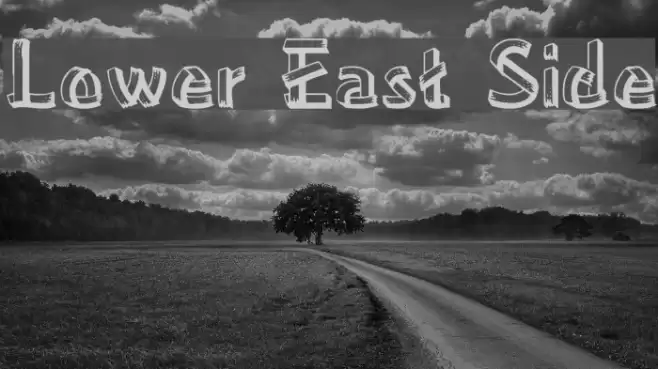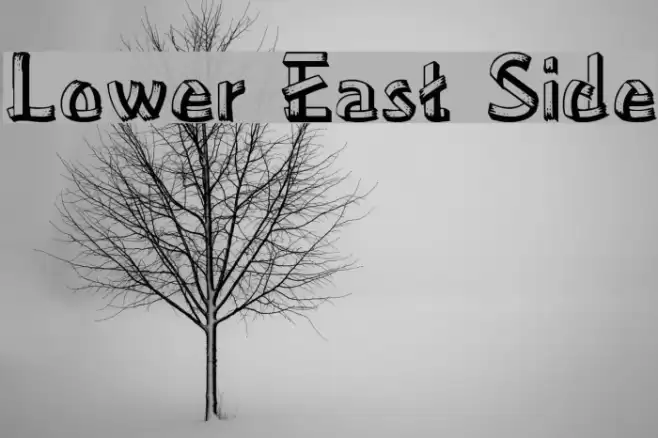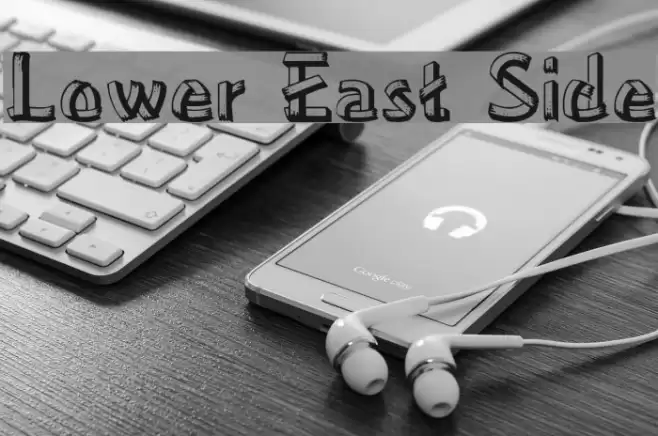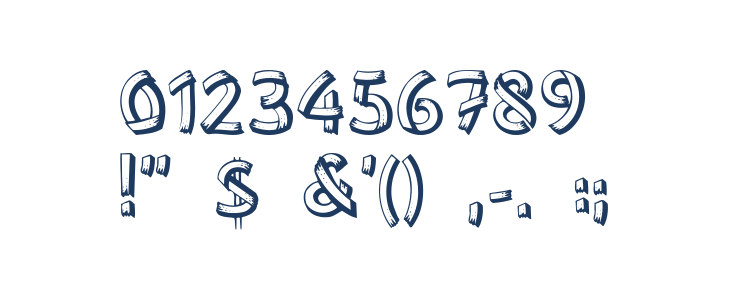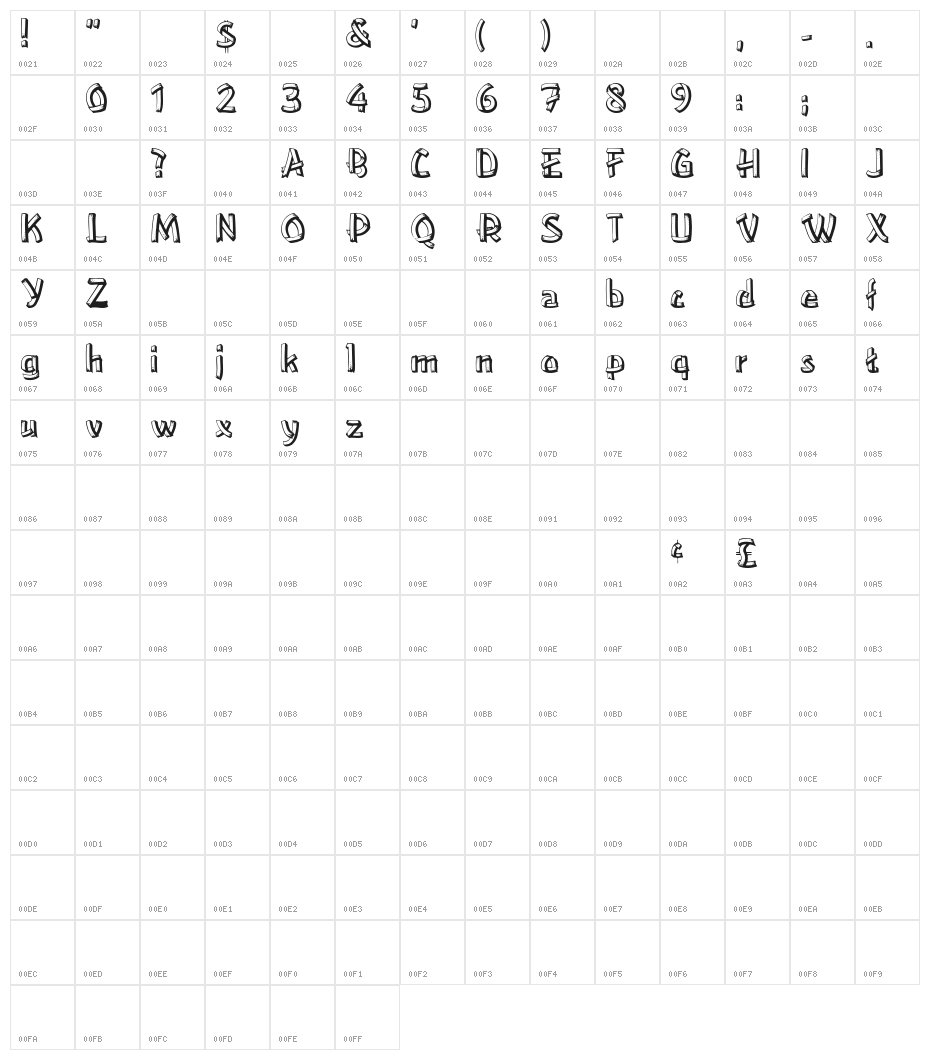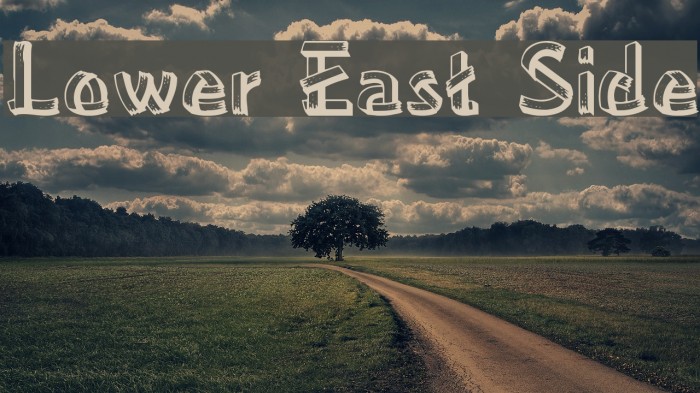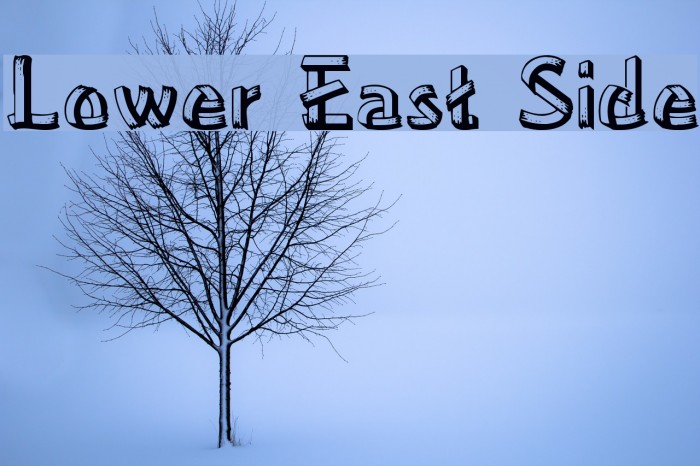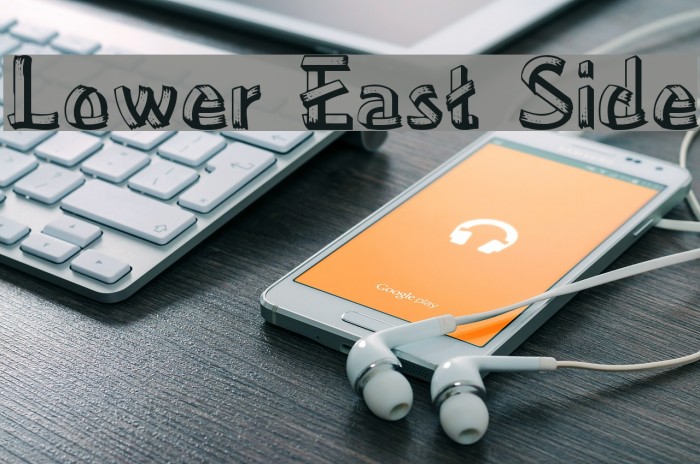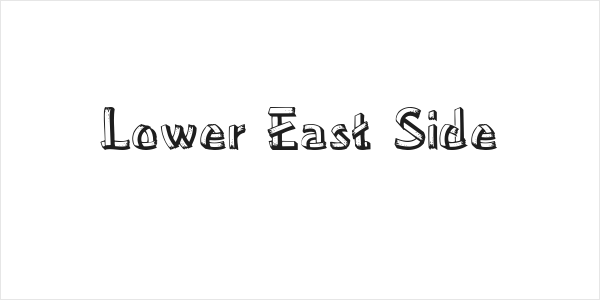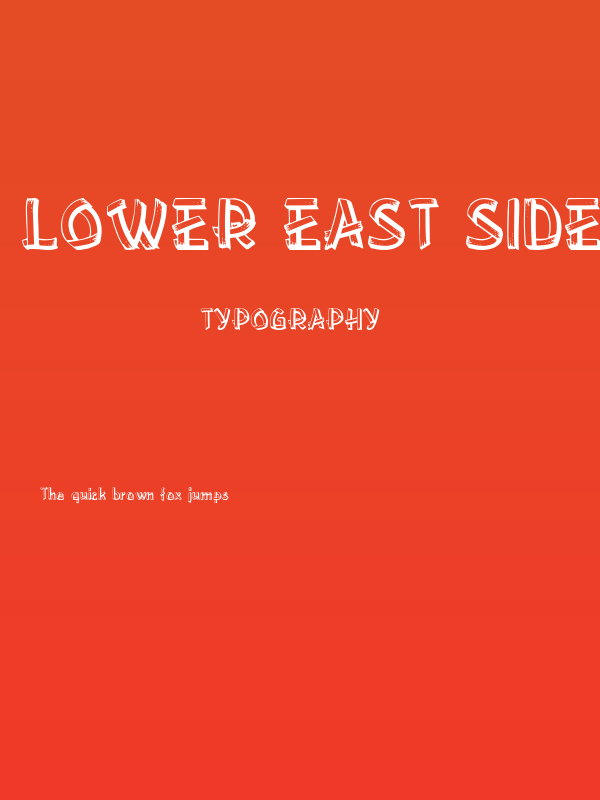
Lower East Side Font
Lower East Side Description
This font features a bold, hand-drawn style with a distressed, textured appearance that gives it a gritty, urban feel. The characters are uppercase and lowercase with a consistent thickness, yet they exhibit a rough, uneven edge that adds to their dynamic and energetic look. The numbers and special characters maintain this aesthetic, providing a cohesive appearance across all glyphs. The font's design is reminiscent of street art or graffiti, making it ideal for projects that require a bold, eye-catching statement.
A bold, textured, hand-drawn font with a gritty, urban style from Uncategorized fonts.
- Proposed Projects: Perfect for street art-inspired designs, posters, album covers, and branding that requires a bold, edgy look.
- Overall Style: Urban, Gritty, Hand-drawn
- Use Case: Headlines, Posters, Branding